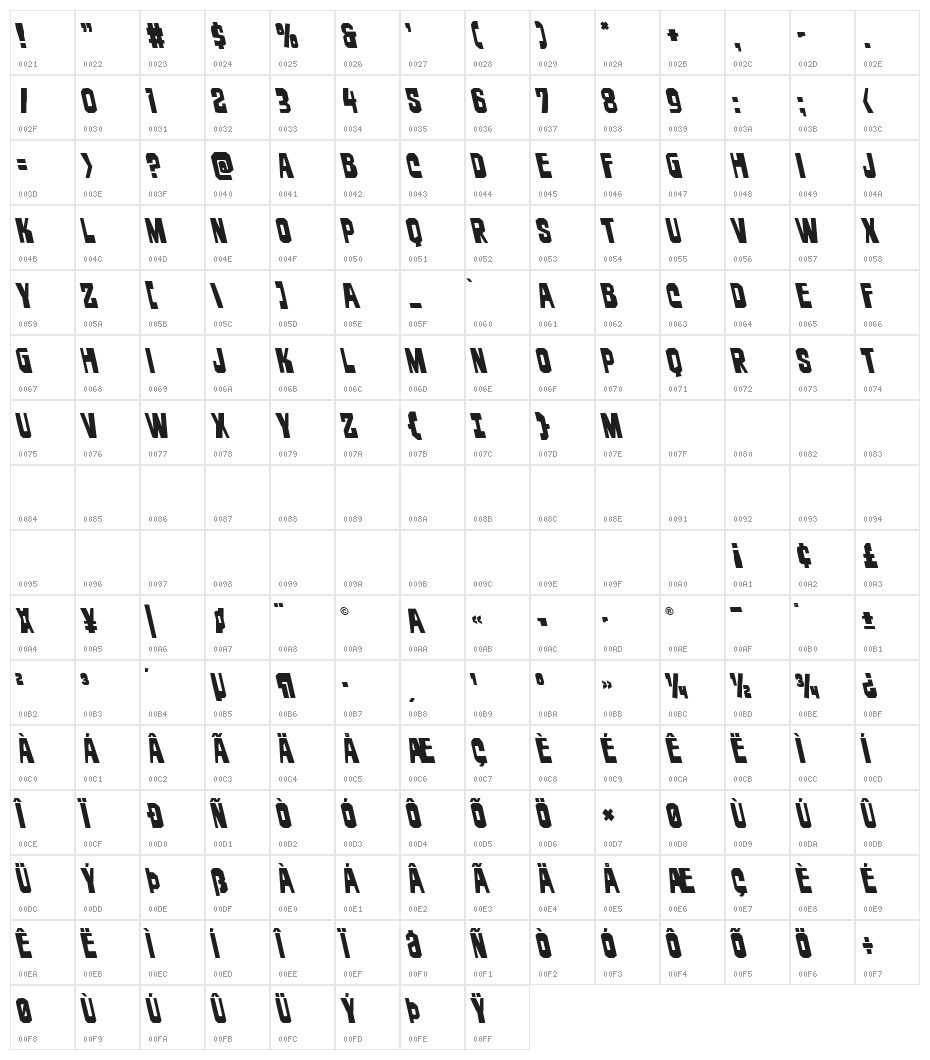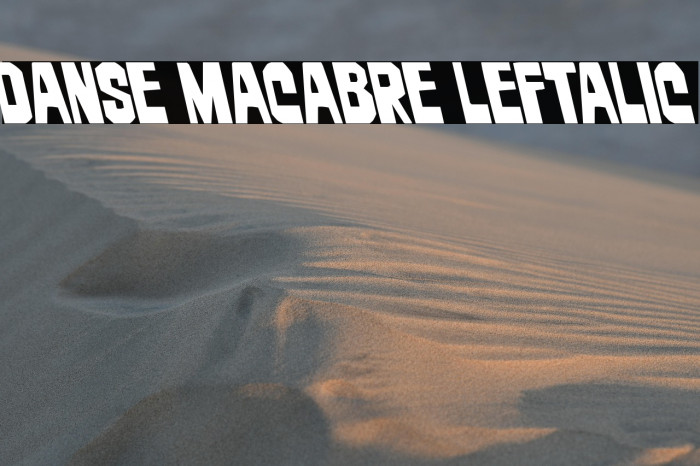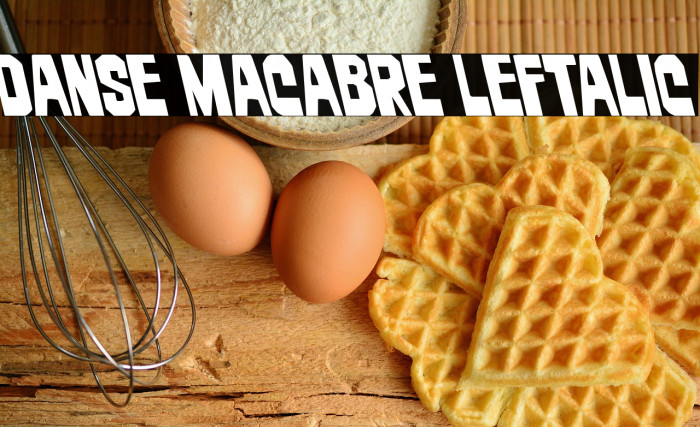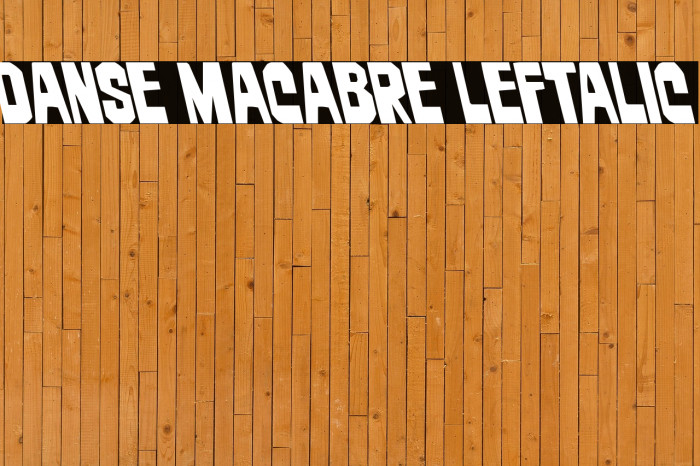
Danse Macabre Leftalic Font
Danse Macabre Leftalic Description
This font features a bold and striking design with a distinct leftward slant, giving it a dynamic and energetic appearance. The characters are blocky and angular, with sharp edges and a strong presence. The uppercase and lowercase letters maintain a consistent style, while the numbers and special characters complement the overall aesthetic. The font's unique style makes it suitable for attention-grabbing designs, where a sense of movement and impact is desired. Its boldness and angularity suggest a modern and edgy feel, ideal for projects that require a standout typographic element.
| Overall Style | Modern, Edgy |
| Proposed Projects | Ideal for posters, album covers, video game graphics, and branding that requires a bold statement. |